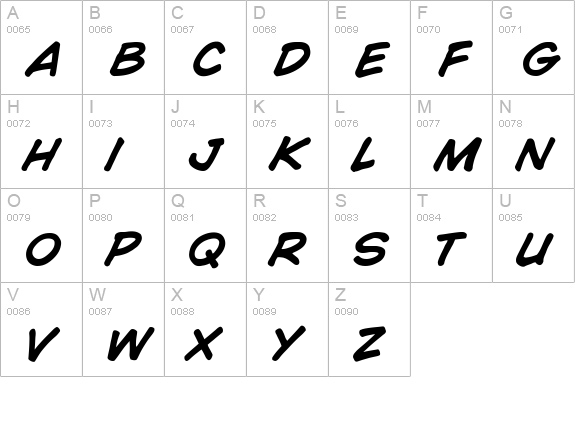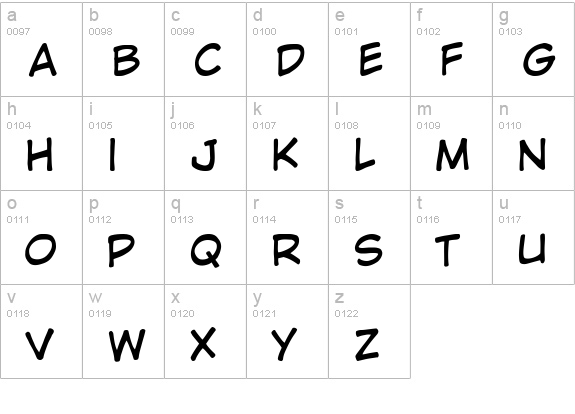
WildAndCrazy Font Details
Introducing WildAndCrazy font, a bold and dynamic typeface that embodies the spirit of adventure and creativity. With its unique and playful design, this font is perfect for adding a touch of excitement to any project. Featuring eye-catching letterforms with quirky details and unexpected twists, WildAndCrazy font is sure to captivate and engage your audience. Whether you're designing a poster, a logo, or a website, this font will instantly grab attention and leave a lasting impression. But what makes WildAndCrazy font even more appealing is that it is absolutely free! Yes, you heard it right. This font is freely available to download at FontsMarket.com. Now you can bring a sense of wildness and craziness to your designs without breaking the bank. Download WildAndCrazy font today and unleash your creativity like never before. With its versatile and expressive nature, this font empowers you to break free from conventional design boundaries and explore new horizons. So go ahead, let your imagination run wild and create something truly extraordinary with WildAndCrazy font.